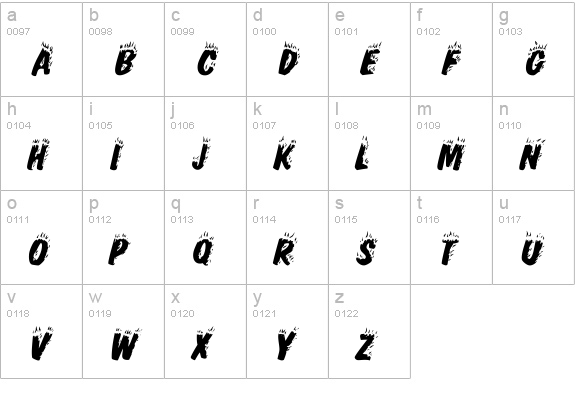
FlamingDisplayCaps Italic Font Details
FlamingDisplayCaps Italic is a distinctive, italic variant in the FlamingDisplayCaps typeface family \xE2\x80\x94 well suited to design and typography projects.
FlamingDisplayCaps Italic font is a striking and dynamic typeface that exudes energy and flair. With its fiery curves and bold presence, this font is perfect for making a statement in any design project. Whether you're creating eye-catching headlines or adding a touch of drama to your branding, FlamingDisplayCaps Italic font is sure to captivate your audience. The best part? This stunning font is available for free download at FontsMarket.com. So you can easily incorporate its unique style into your creative work without breaking the bank. Don't miss out on the opportunity to enhance your designs with the bold and expressive FlamingDisplayCaps Italic font today!